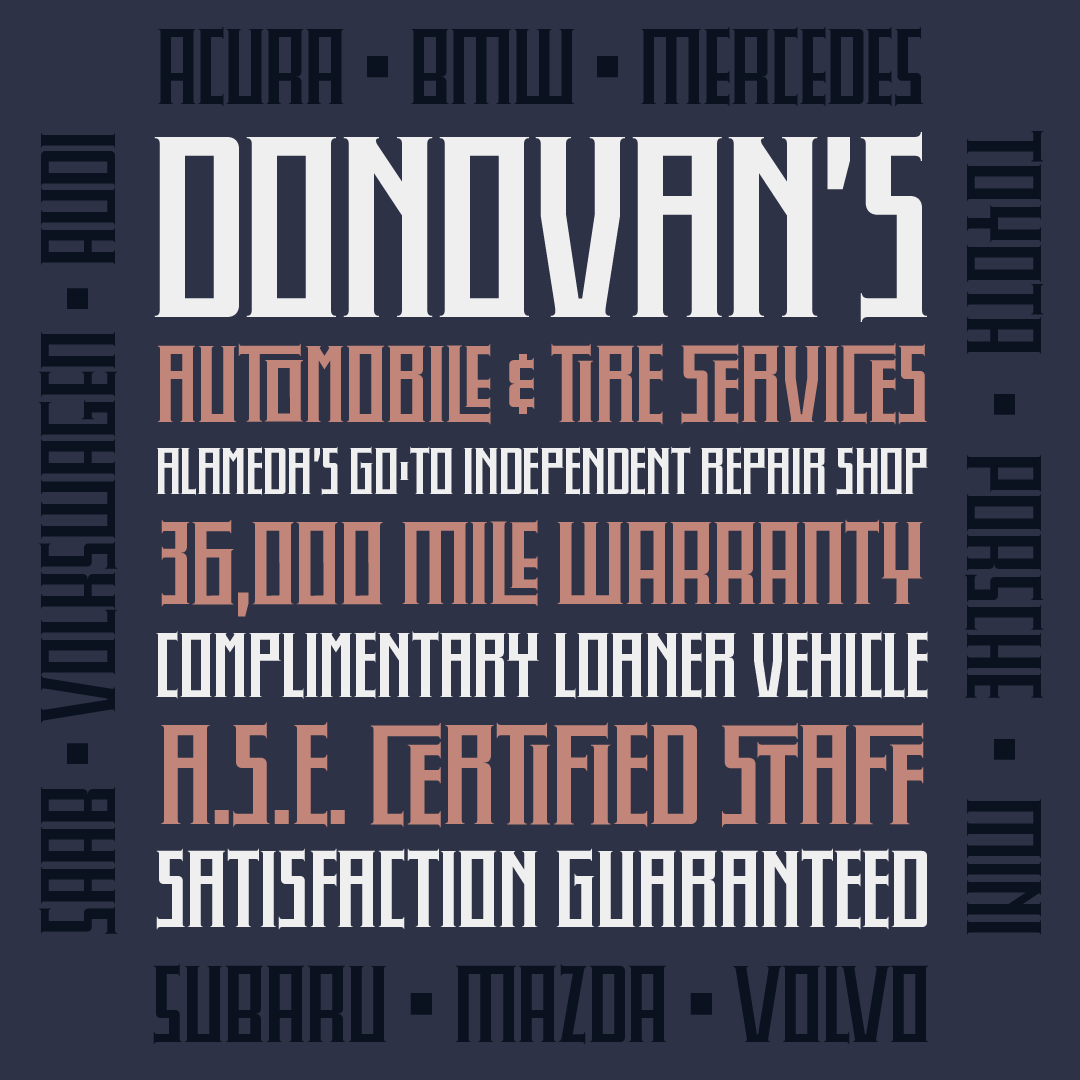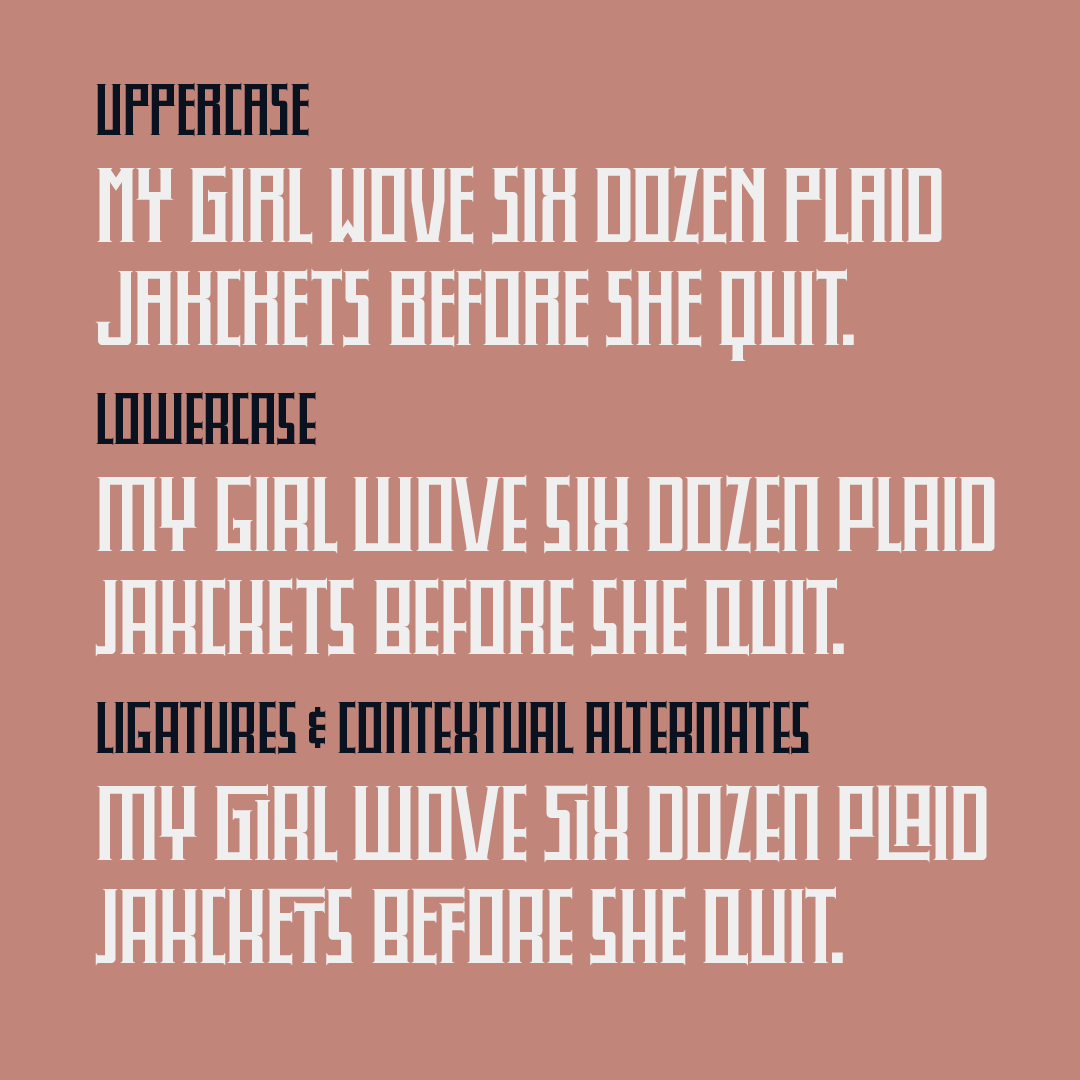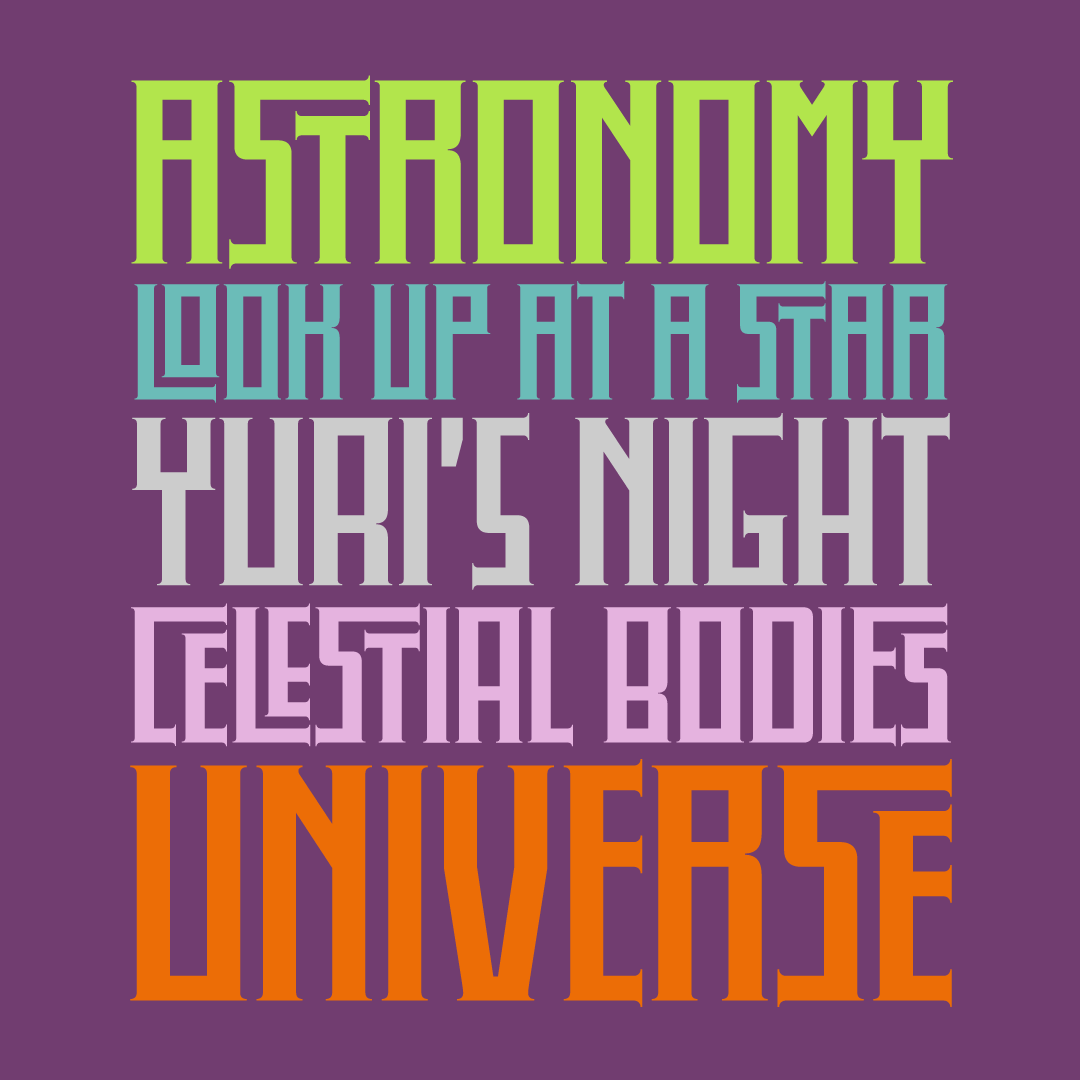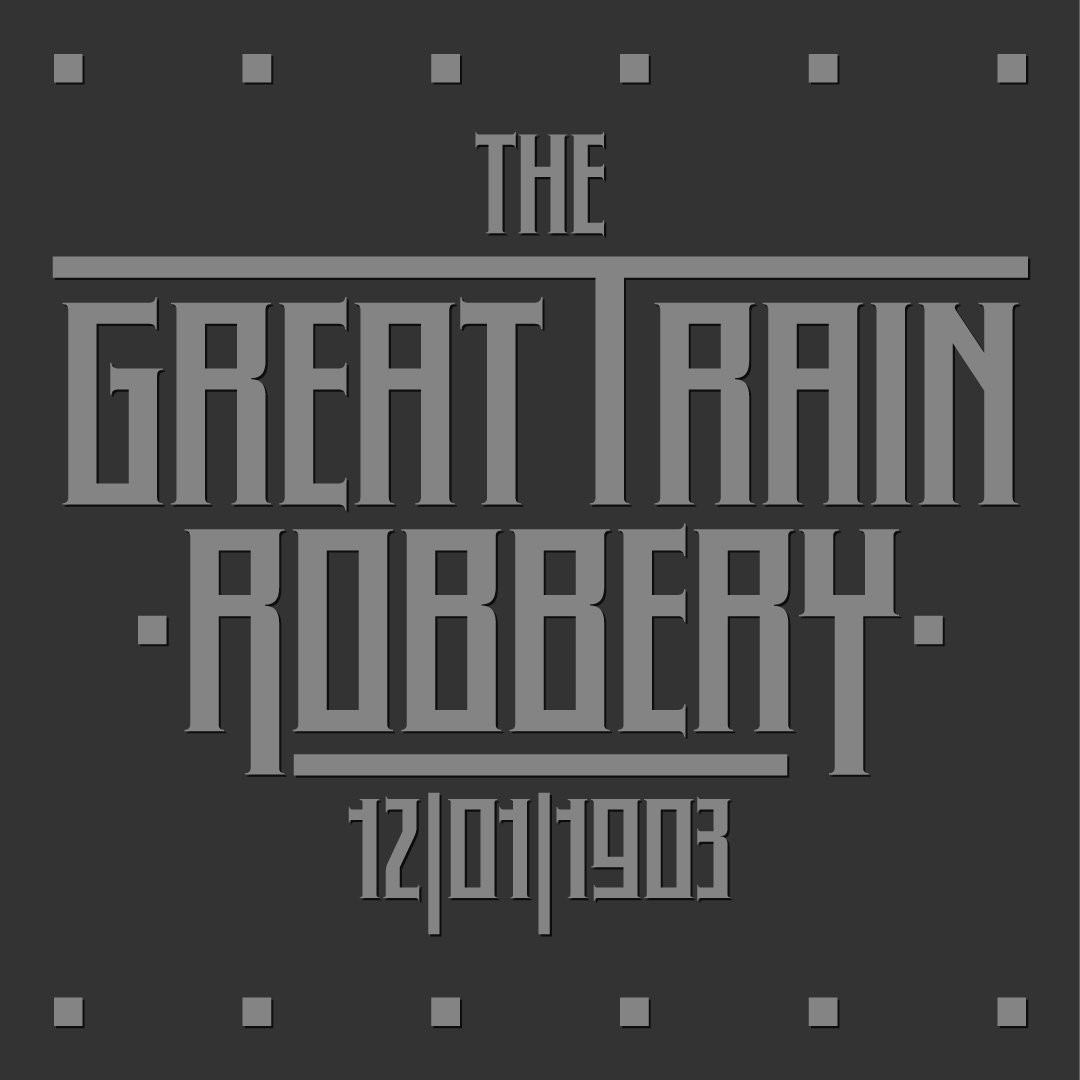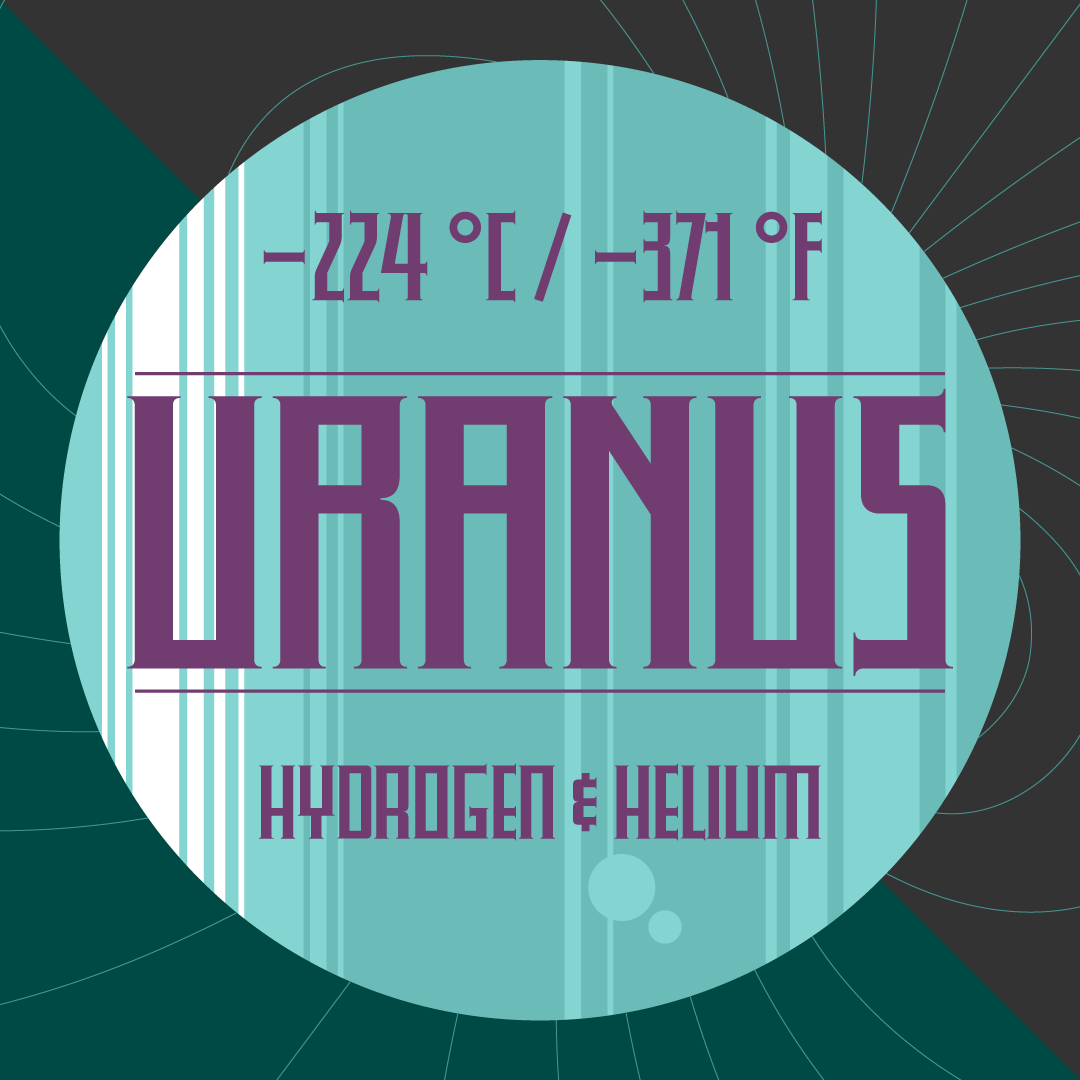
Piston™
A bold design inspired by
the Industrial Revolution.
Designed by Steven Skaggs
Victorian revivals and inspirations will often seize on that period’s tendency toward florid decoration. However, the times were also the final surge of the industrial revolution, a time that witnessed the ultimate development in steam, diesel, and oil engines in myriad shapes and sizes.
Piston skillfully captures this indomitable age, boundless in its faith in the technologies of iron and steel, and tempers it with neo-classical details like the verticality of neo-gothic windows and finely-crafted finials. It’s all here in the brute strength of the verticals, the blackness of tight setting, and contrasting delicacy of the terminal serifs.
Designer Steven Skaggs intended Piston to be a typeface that can be tinkered with: Convert it to outlines, pull on the vertical and horizontal strokes, pack it tight, and a headline becomes a logotype. Built in OpenType features allow the letterforms to automatically change by substituting a myriad of custom ligatures.
Additional features include: Kerning, Fractions, Standard Ligatures, Ordinals, Ornaments, Contextual Alternates, Terminal Forms, Initial Forms, Stylistic Sets, and Contextual Ligatures.